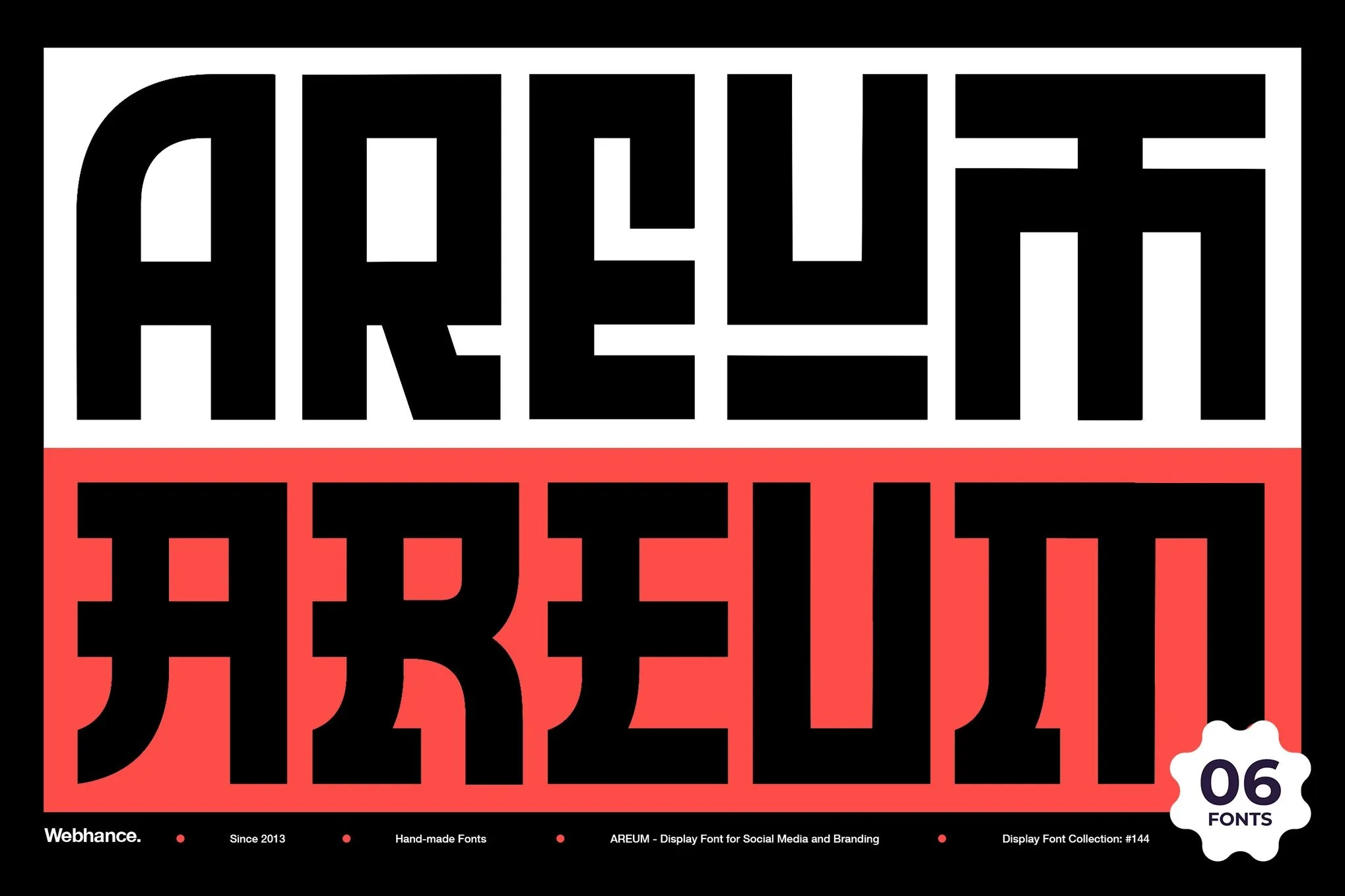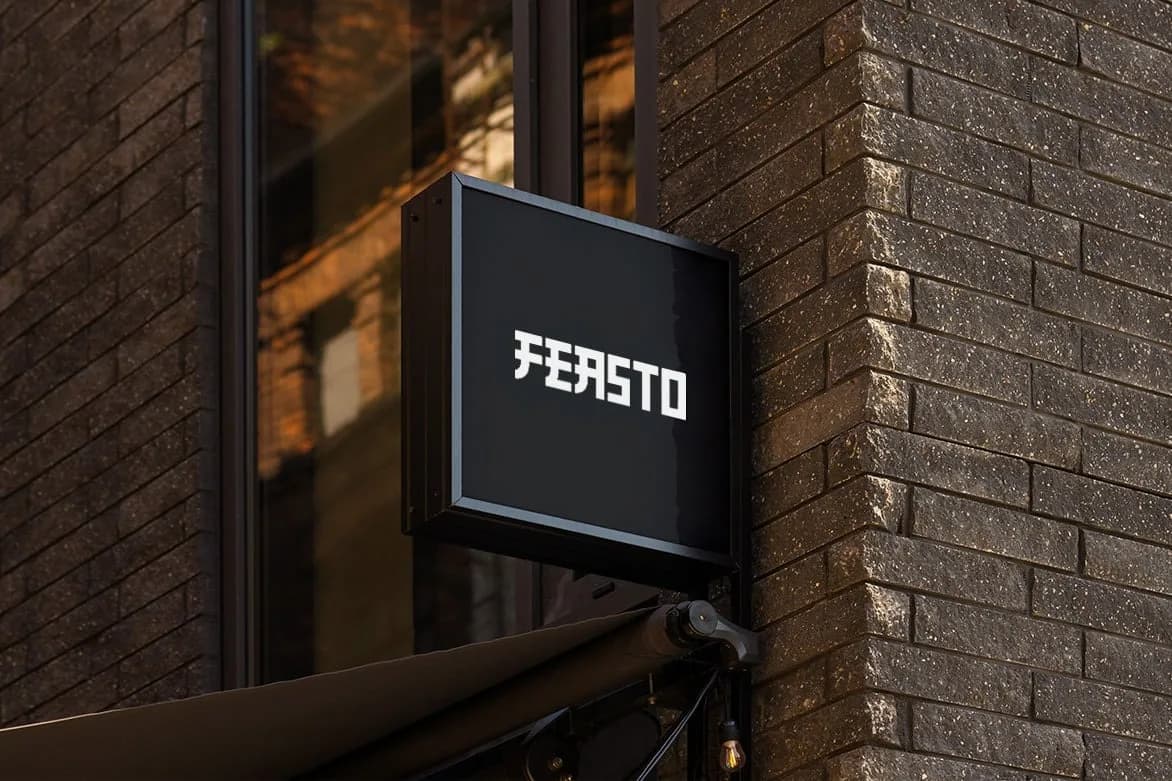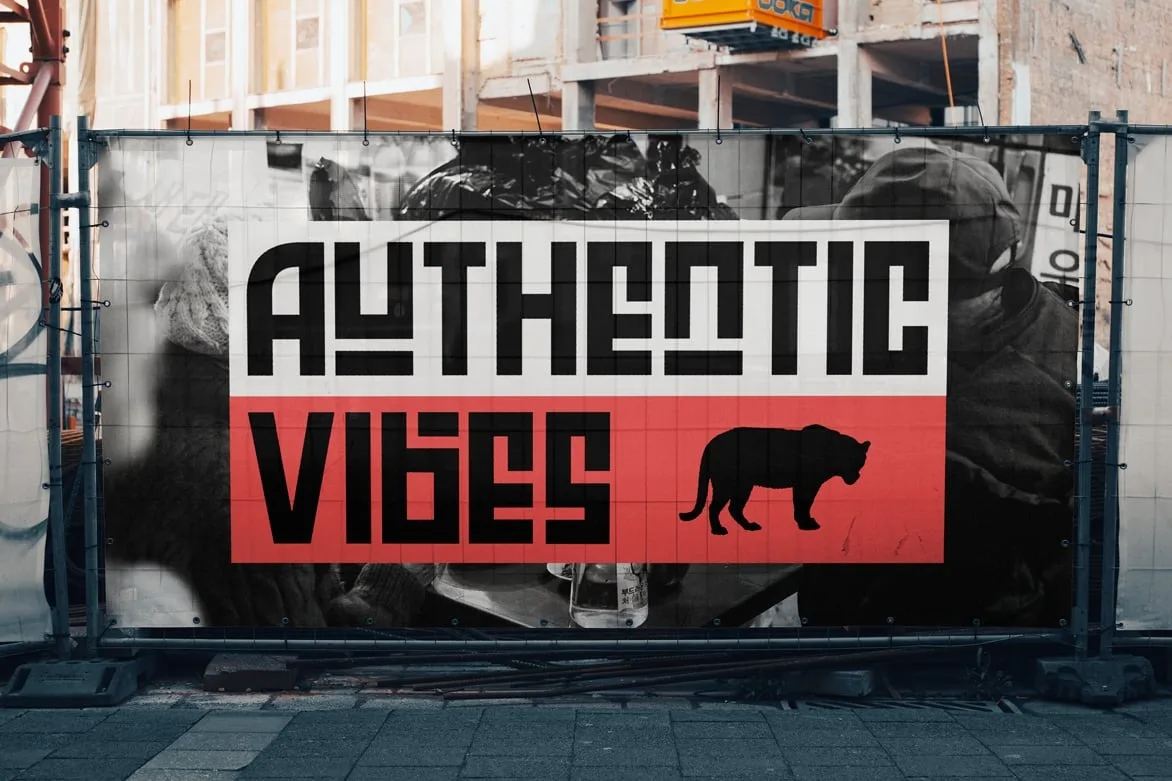
Areum
0Areum, a sophisticated sans-serif font, showcases a unique blend of Korean aesthetics and modern design principles. Its uppercase styling features clean lines and a balanced geometry that contributes to an overall sense of harmony and elegance. The careful construction of Areum provides a contemporary feel, making it particularly suited for use in branding and promotional materials. The font's modular characteristics enhance its adaptability across various applications, from restaurant menus to eye-catching posters.
Ideal for tech SaaS dashboards, marketing sites, and social media platforms, Areum excels in environments where clarity and identity are paramount. The font's symmetrical design lends itself well to logo wordmarks and packaging, where a strong visual presence is needed to captivate audiences. With its multilingual support, including Latin characters, Areum is also an excellent choice for global branding efforts.
In addition to its aesthetic appeal, Areum features thoughtful kerning that enhances readability, ensuring that your text remains legible even in densely packed layouts. Whether used in editorial spreads or as a standout element in digital products, this font delivers both versatility and character, positioning it as a valuable asset in any designer's toolkit. Explore how Areum can elevate your projects with its distinctive charm and modern flair.